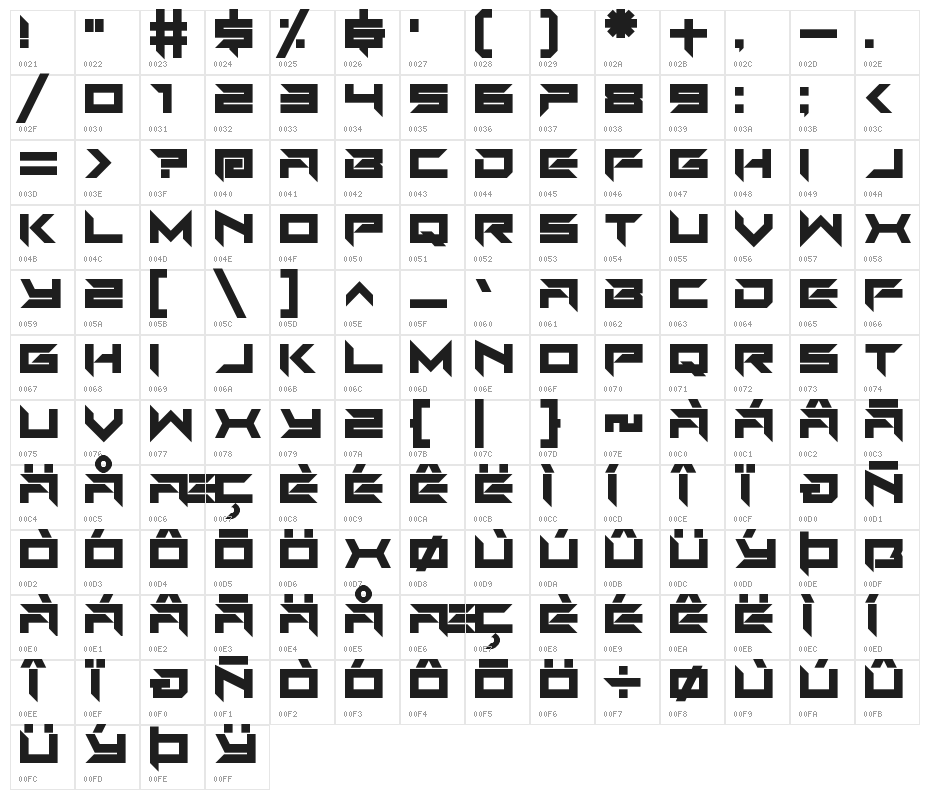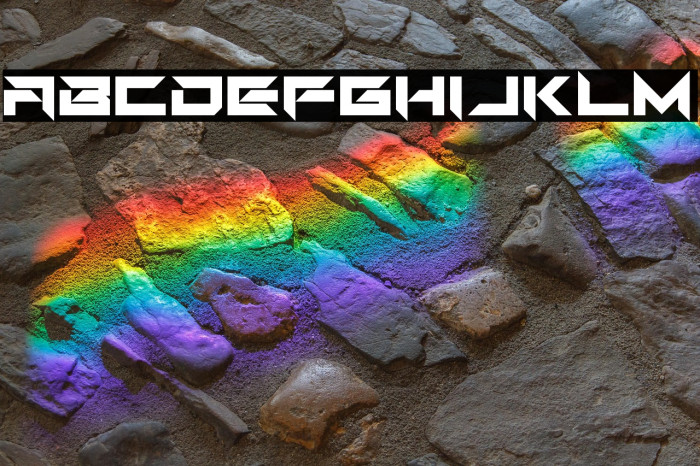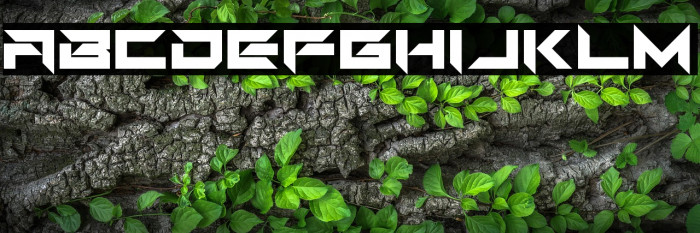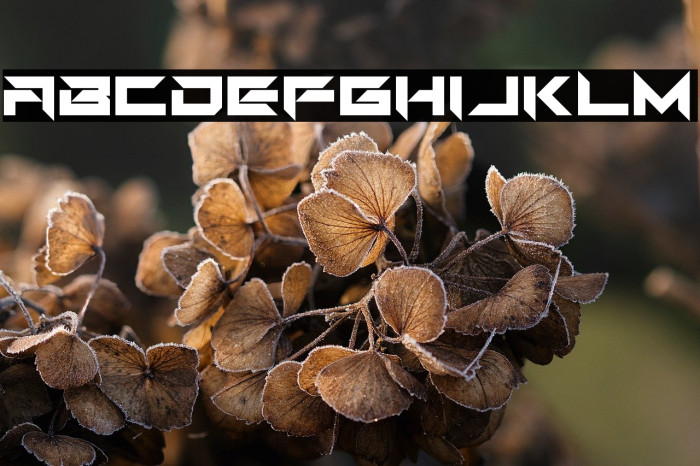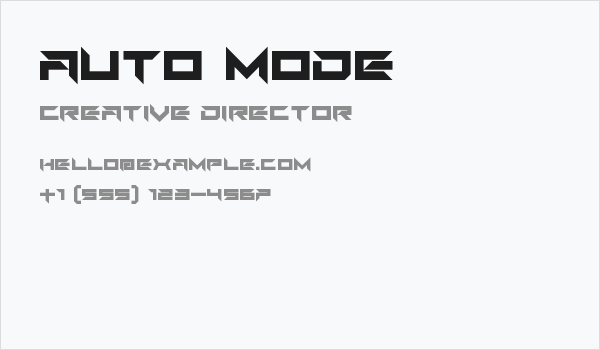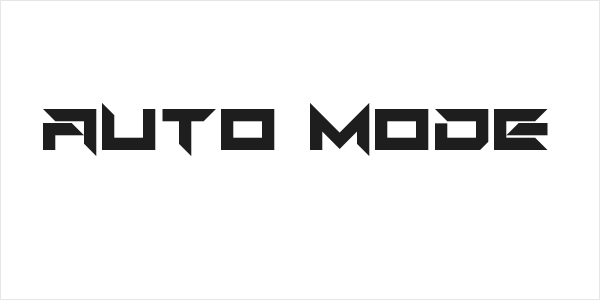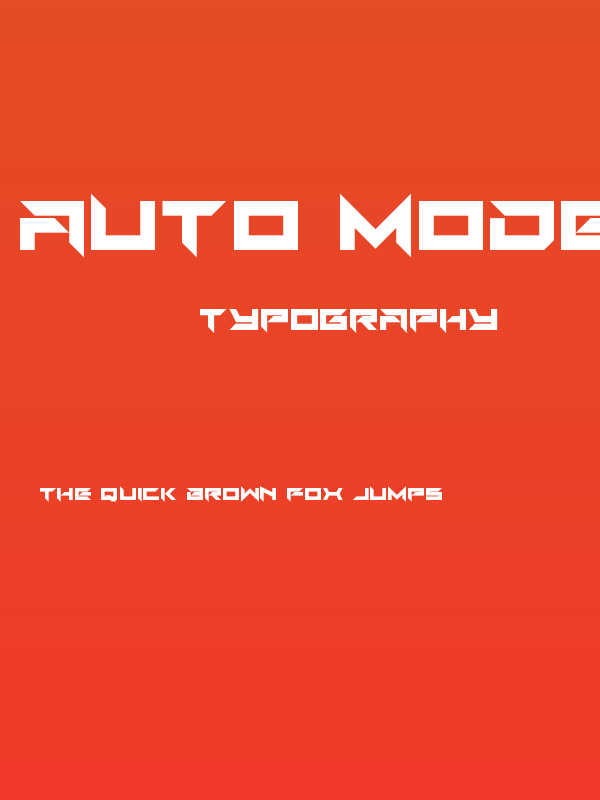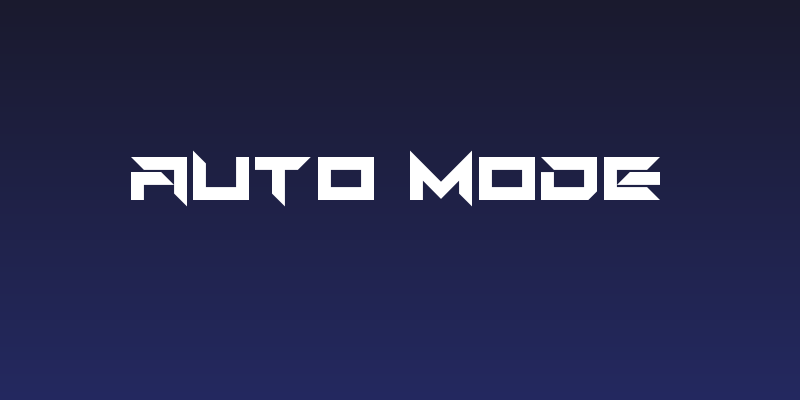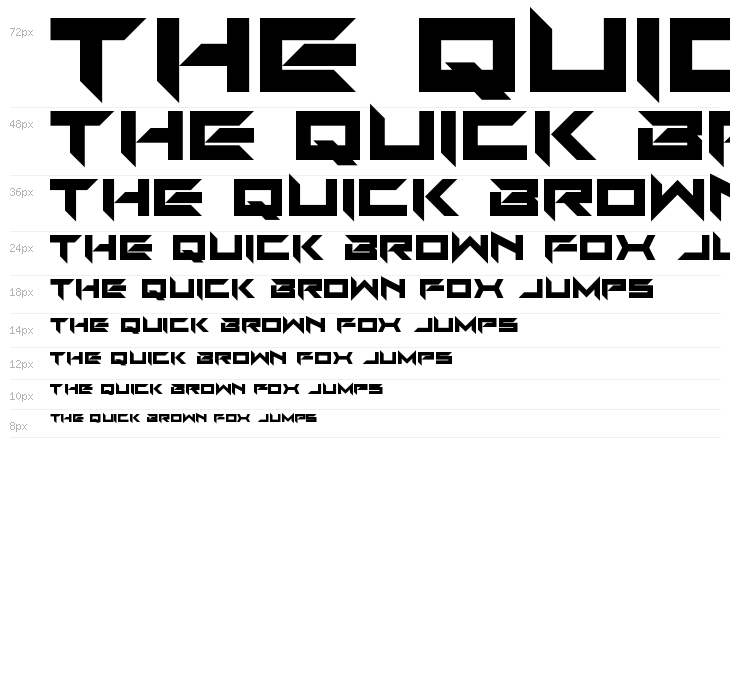
Auto Mode Font
Auto Mode Description
This font features a bold, geometric design with sharp angles and a futuristic aesthetic. The characters are constructed with a consistent angular pattern, giving them a distinct, edgy appearance. The uppercase and lowercase letters maintain a uniform style, emphasizing a modern, tech-inspired look. The numbers and special characters follow the same design principles, ensuring a cohesive visual identity across all elements. The font's strong presence and unique style make it suitable for projects that require a bold statement.
| Proposed Projects | Ideal for sci-fi themed designs, tech branding, video game titles, and futuristic posters. |